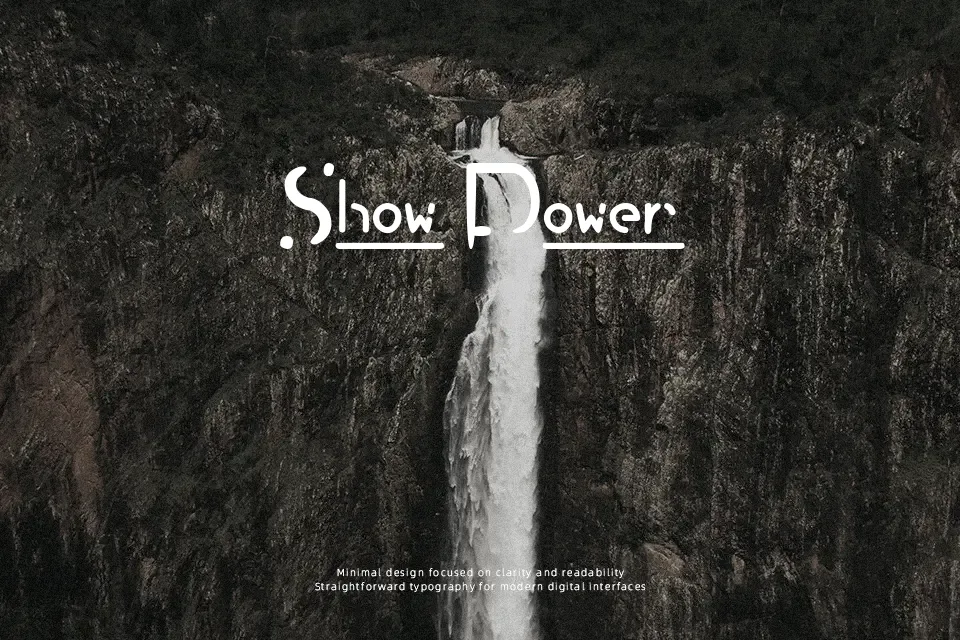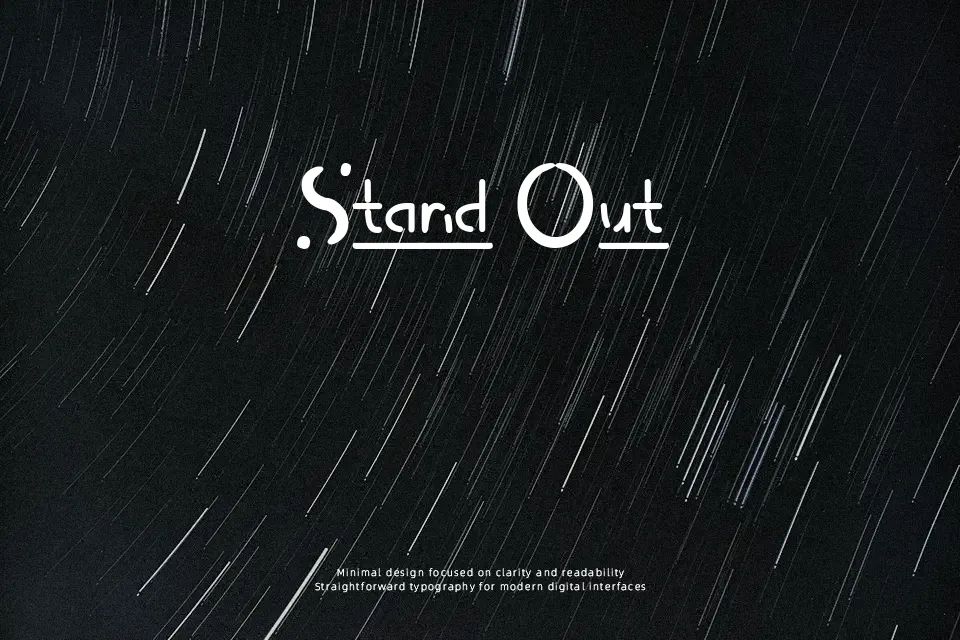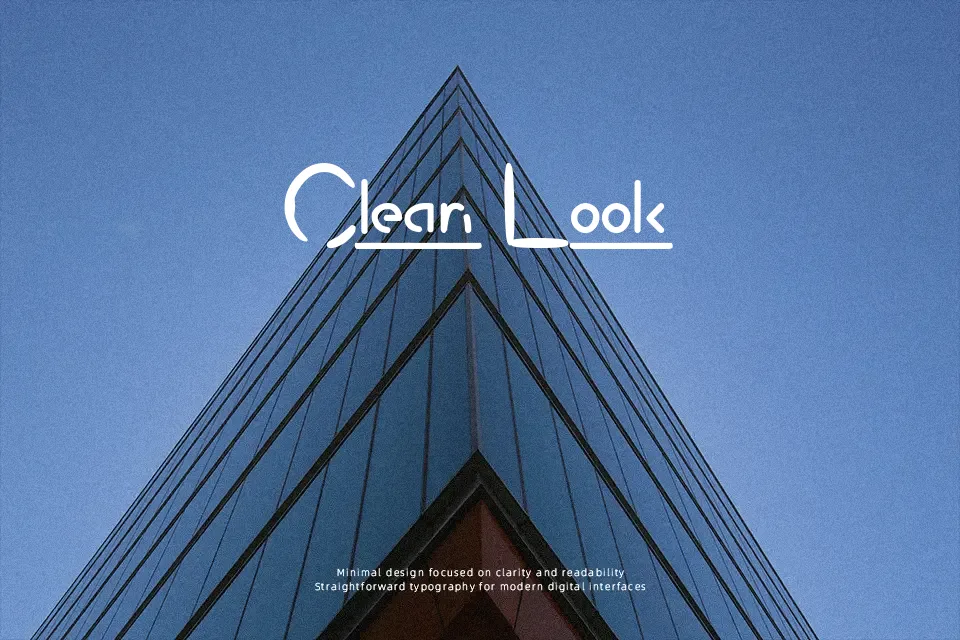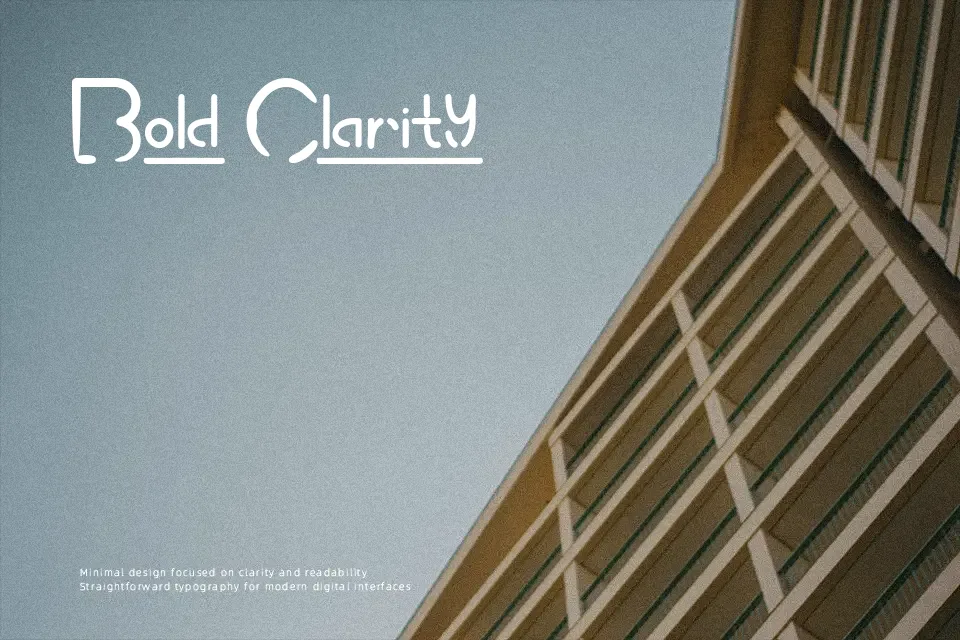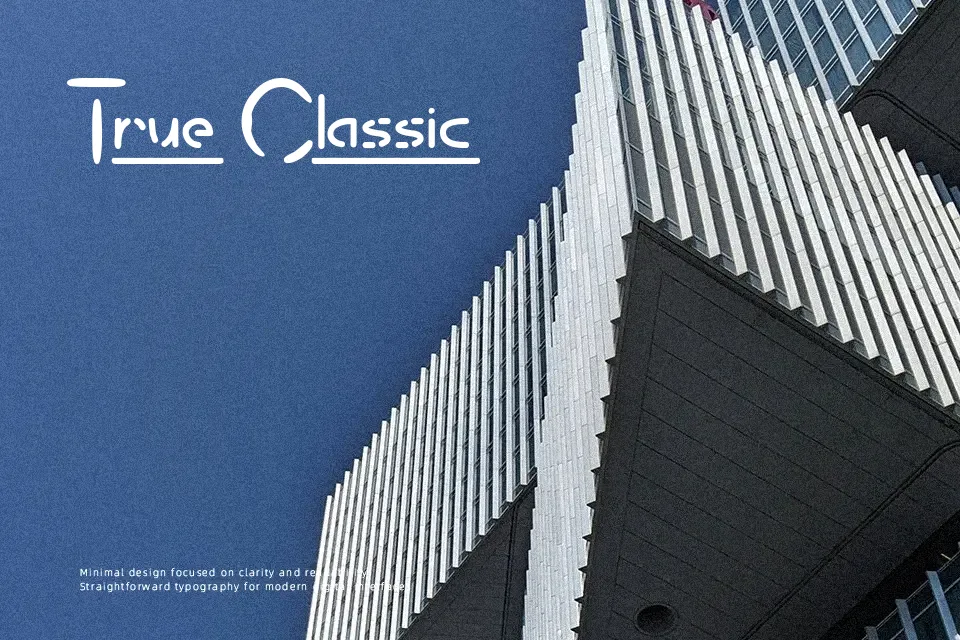
UnConnect Font
UnConnect Font features an expressive display style built from disconnected strokes, quirky gaps, and lively geometric shapes. The letterforms display moderate stroke weight with minimal contrast, relying on intentional separations within standard letter anatomy to generate rhythm across words. Spacing is comfortably open, keeping individual characters readable despite their unconventional breaks. The design performs effectively across party invitations, casual branding, and eye-catching packaging titles. However, the deliberate structural fragmentation reduces readability in continuous body text and compact interface labels. These unconventional segmentations deliver charming individuality in prominent display settings.
Best For: children’s event posters, playful apparel graphics, party invitation headlines, creative packaging titles
Not Ideal For: continuous body text, mobile interface labels, legal documents, dense editorial layouts
Perfect for headline, kids, and logo, with a creative and cartoon style.